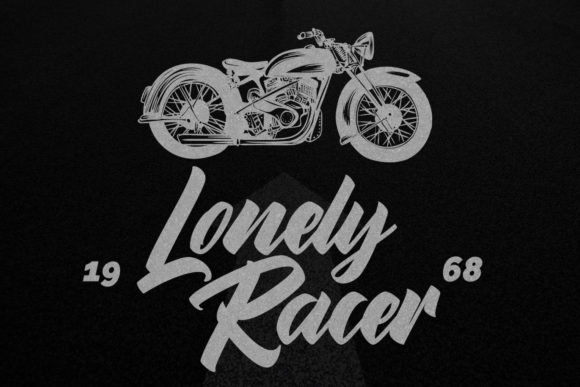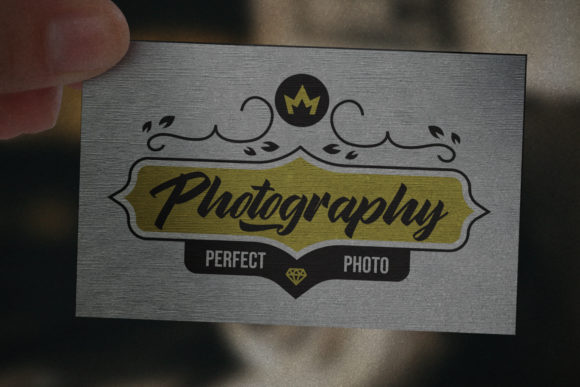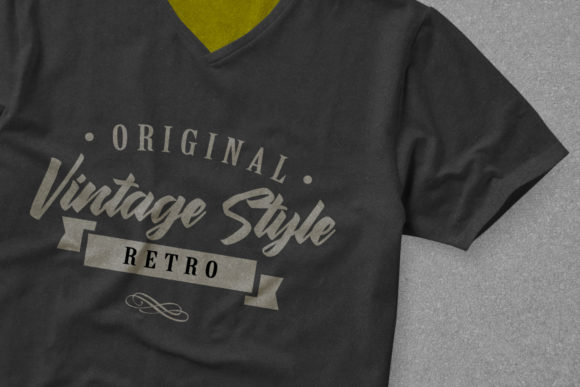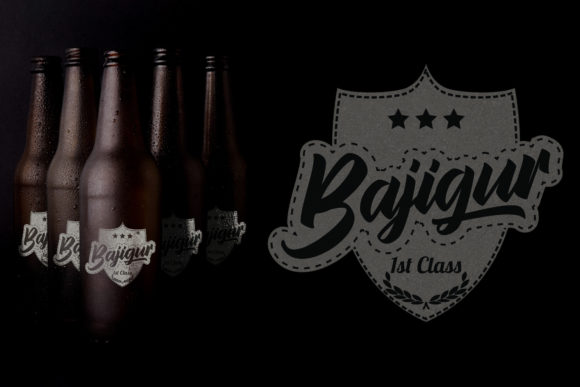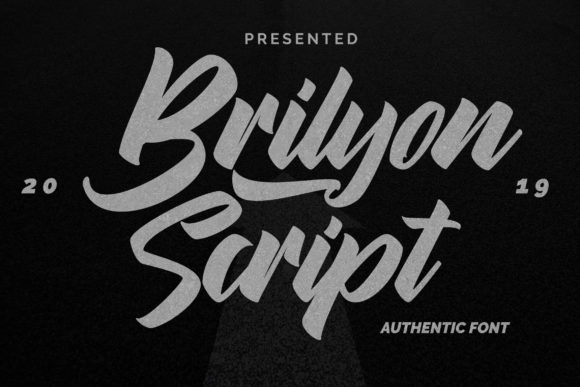
Brylion Script Font: A Sweet and Cool Handwritten Font with an Authentic Vibe
In the world of typography, fonts play a crucial role in conveying the tone and personality of a brand or design. For designers and crafters looking for a unique and authentic touch, the Brylion Script Font is an excellent choice. In this article, we’ll dive into the features and benefits of Brylion, a sweet and cool handwritten font that is sure to elevate your designs.
What is Brylion Script Font?
Brylion is a modern script font that boasts an incredibly authentic vibe. Its handwritten style is perfect for designs that require a personal touch, such as invitations, branding, packaging, and more. The font’s unique characteristics make it stand out from other script fonts, offering a fresh and exciting alternative for designers and crafters.
Key Features of Brylion Script Font
- Authentic Handwritten Style: Brylion’s handwritten style is designed to mimic the natural flow of handwriting, giving your designs a personal and organic feel.
- Sweet and Cool Aesthetic: The font’s sweet and cool aesthetic makes it perfect for a wide range of designs, from feminine and elegant to modern and trendy.
- Unique Character Set: Brylion features a unique character set, including uppercase and lowercase letters, numbers, and punctuation marks.
- Easily Readable: Despite its handwritten style, Brylion is easily readable, making it perfect for body text and headlines.
- Multilingual Support: The font supports multiple languages, making it a great choice for designers working on international projects.
Benefits of Using Brylion Script Font
So, why choose Brylion Script Font for your designs? Here are just a few benefits:
- Adds a Personal Touch: Brylion’s handwritten style adds a personal touch to your designs, making them more relatable and engaging.
- Versatile: The font’s versatility makes it suitable for a wide range of designs, from digital to print.
- High-Quality: The font is designed to high-quality standards, ensuring crisp and clear rendering on various devices and platforms.
Use Cases for Brylion Script Font
Brylion Script Font is perfect for a variety of design projects, including:
- Invitations and Stationery: Add a personal touch to your invitations, wedding cards, and other stationery with Brylion’s elegant handwritten style.
- Branding and Packaging: Use Brylion to create unique and memorable brand identities, product labels, and packaging designs.
- Digital Designs: Brylion is perfect for digital designs, such as social media graphics, blog headers, and website titles.
- Crafting and DIY Projects: Add a personal touch to your crafting and DIY projects, such as handmade cards, gift tags, and scrapbooking.
In conclusion, Brylion Script Font is a sweet and cool handwritten font that offers an incredibly authentic vibe. Its unique features, versatility, and ease of use make it an excellent choice for designers and crafters looking to add a personal touch to their designs. Whether you’re working on invitations, branding, digital designs, or crafting projects, Brylion is sure to elevate your designs and make them stand out.